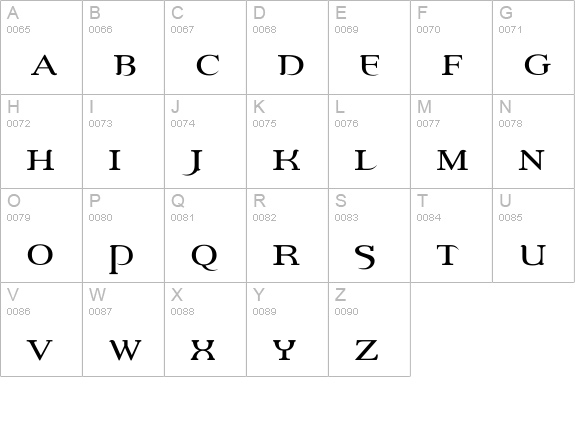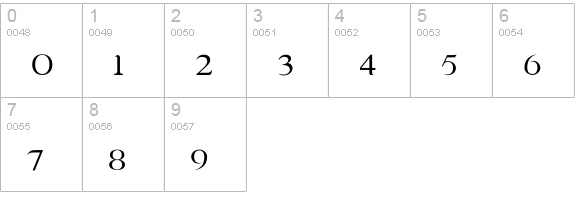
Percolator-Text Font Details
Introducing Percolator-Text font, a stunning typeface that will captivate your audience with its unique and charismatic design. This font is a perfect blend of elegance and modernity, making it the ideal choice for various creative projects. Percolator-Text font features beautifully crafted letters with subtle curves and clean lines, creating a harmonious and balanced visual appeal. Its versatility allows it to be used effortlessly in both digital and print media, ensuring that your designs stand out from the crowd. But what makes Percolator-Text font truly exceptional is its availability for free download at FontsMarket.com. Yes, you read that right - this incredible font can be yours without spending a penny. FontsMarket.com offers this font as a gift to all design enthusiasts, allowing you to explore and unleash your creativity without any constraints. Whether you're a professional designer or simply a typography enthusiast, Percolator-Text font is a must-have addition to your font library. Its extensive character set, including uppercase and lowercase letters, numerals, punctuation marks, and special symbols, provides endless possibilities for your designs. Imagine using Percolator-Text font for your next branding project, creating a captivating logo that leaves a lasting impression. Or perhaps using it in your editorial designs to add a touch of sophistication and refinement. The choices are limitless, and with Percolator-Text font, you have the power to transform your creative visions into reality. So why wait? Download Percolator-Text font today from FontsMarket.com and embark on a journey of design exploration. With its exceptional quality and the fact that it's freely available, this font is a true gem waiting to be discovered. Don't miss out on the opportunity to elevate your designs to new heights with Percolator-Text font.